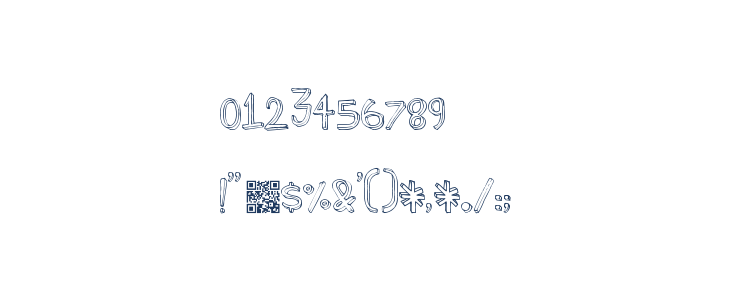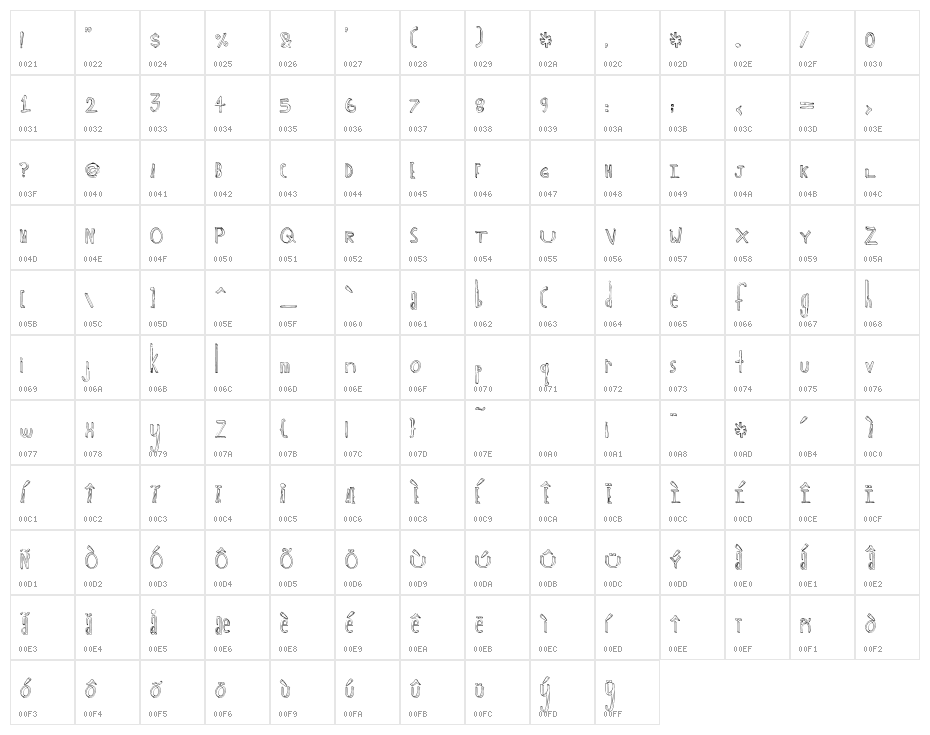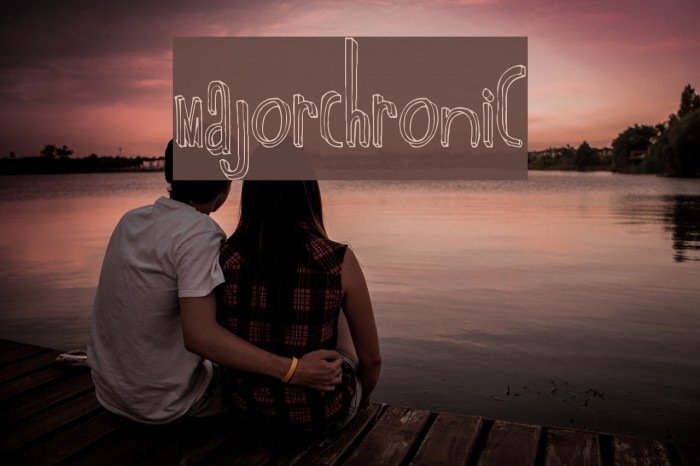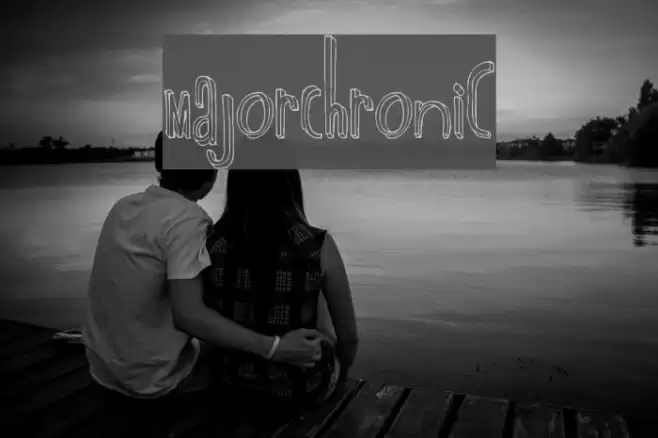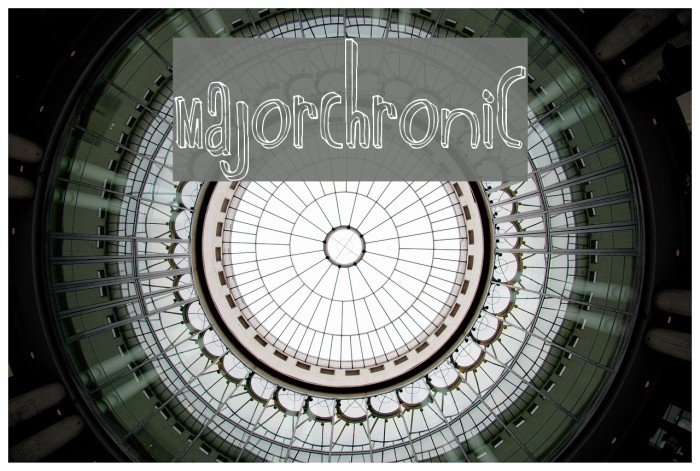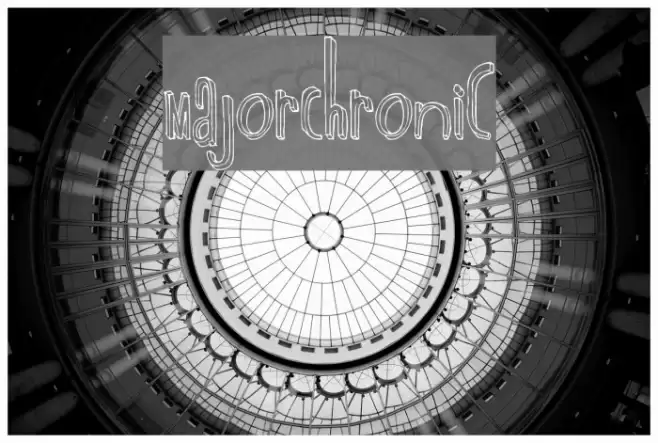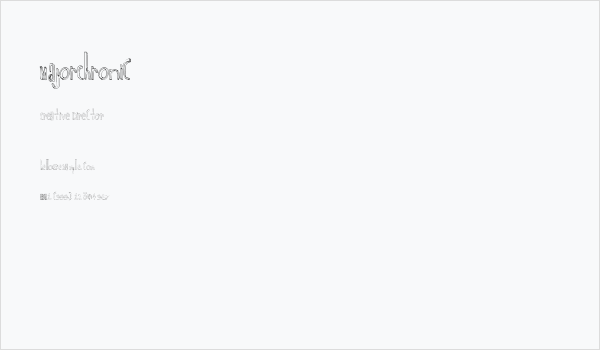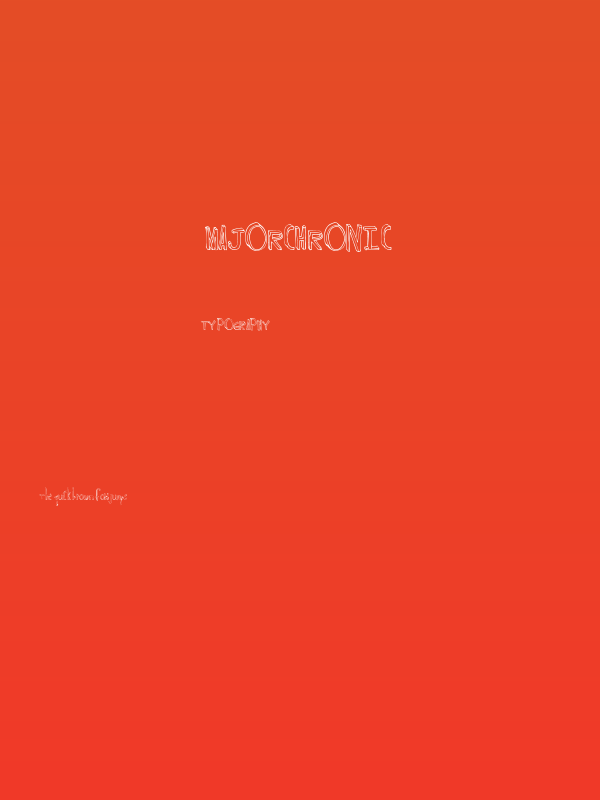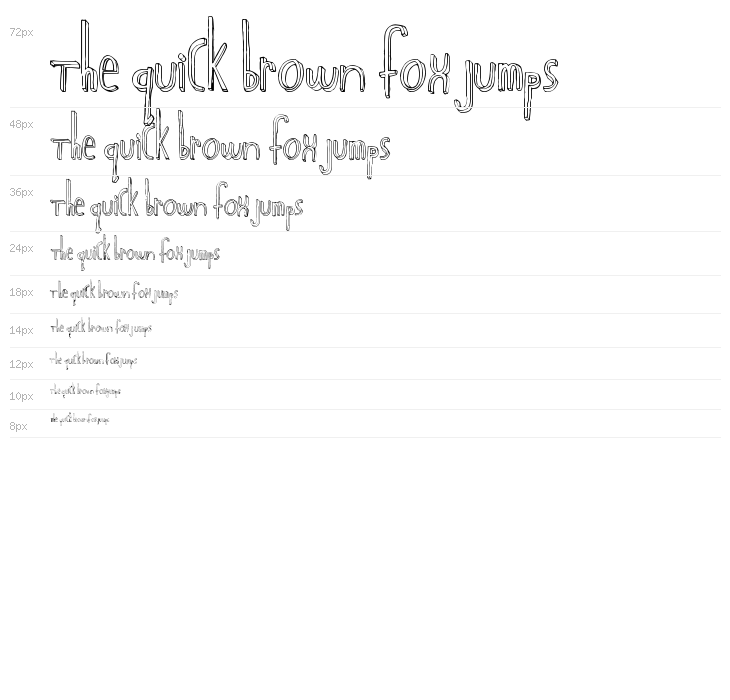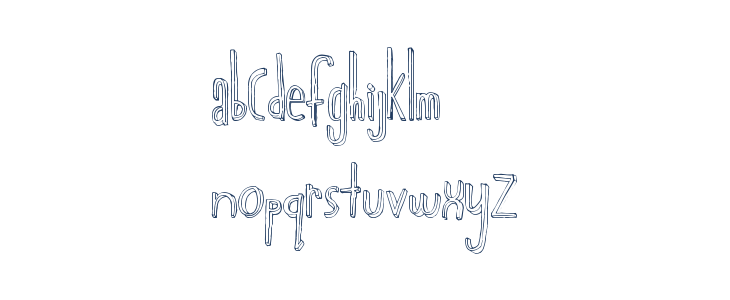
MajorChronic Font
MajorChronic Description
This font features a playful and artistic style with a hand-drawn appearance. The characters are outlined with a double line, giving them a sketch-like quality. Each letter has a unique, slightly irregular shape, adding to the whimsical and informal feel. The uppercase and lowercase letters maintain a consistent style, while the numbers and special characters complement the overall design. This font is ideal for creative projects that require a fun and casual aesthetic.
| Overall Style | Whimsical, Artistic |
| Use Case | Headlines, Posters, Creative projects |
| Proposed Projects | Ideal for children's books, creative posters, casual invitations, and artistic branding. |